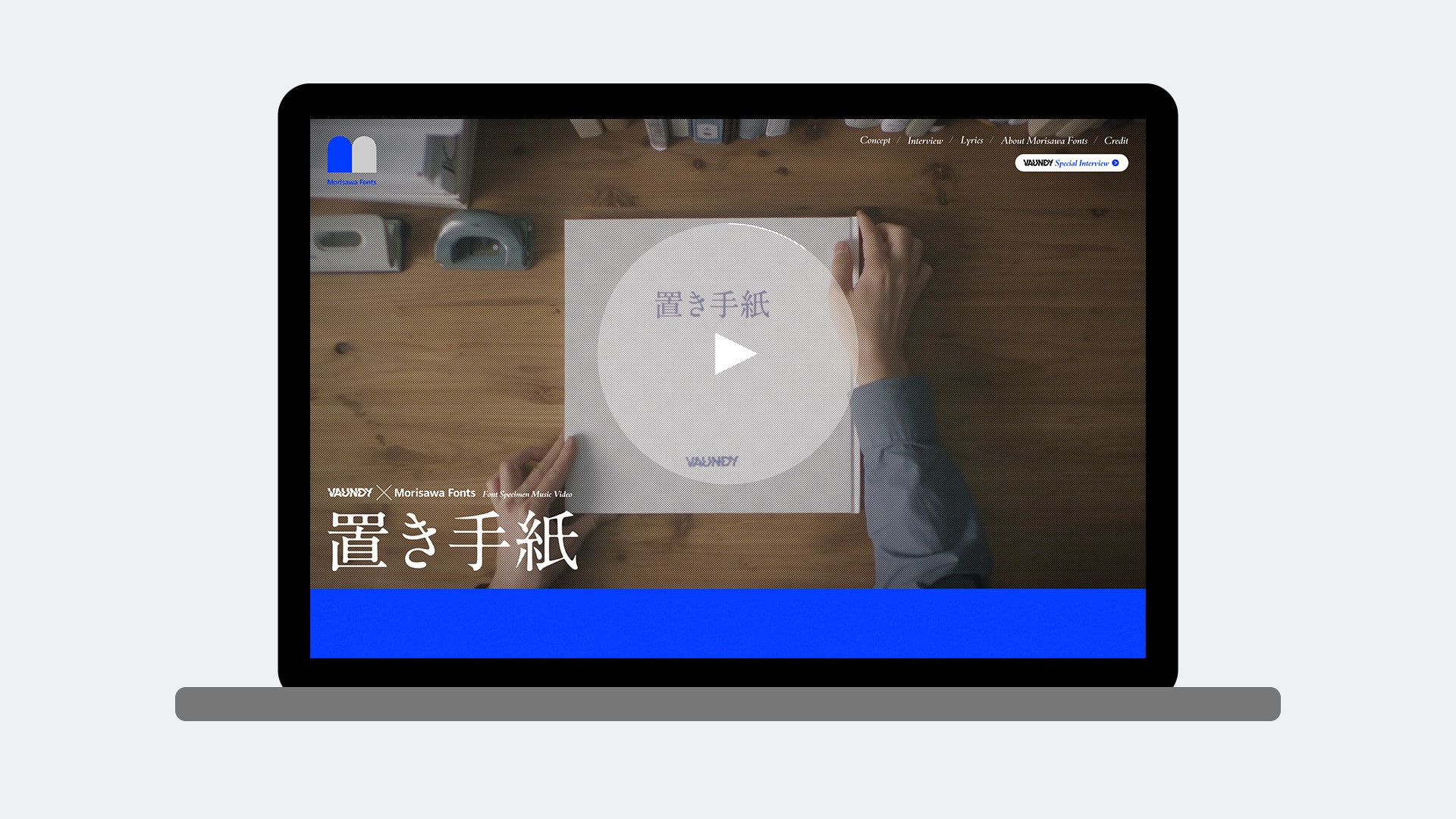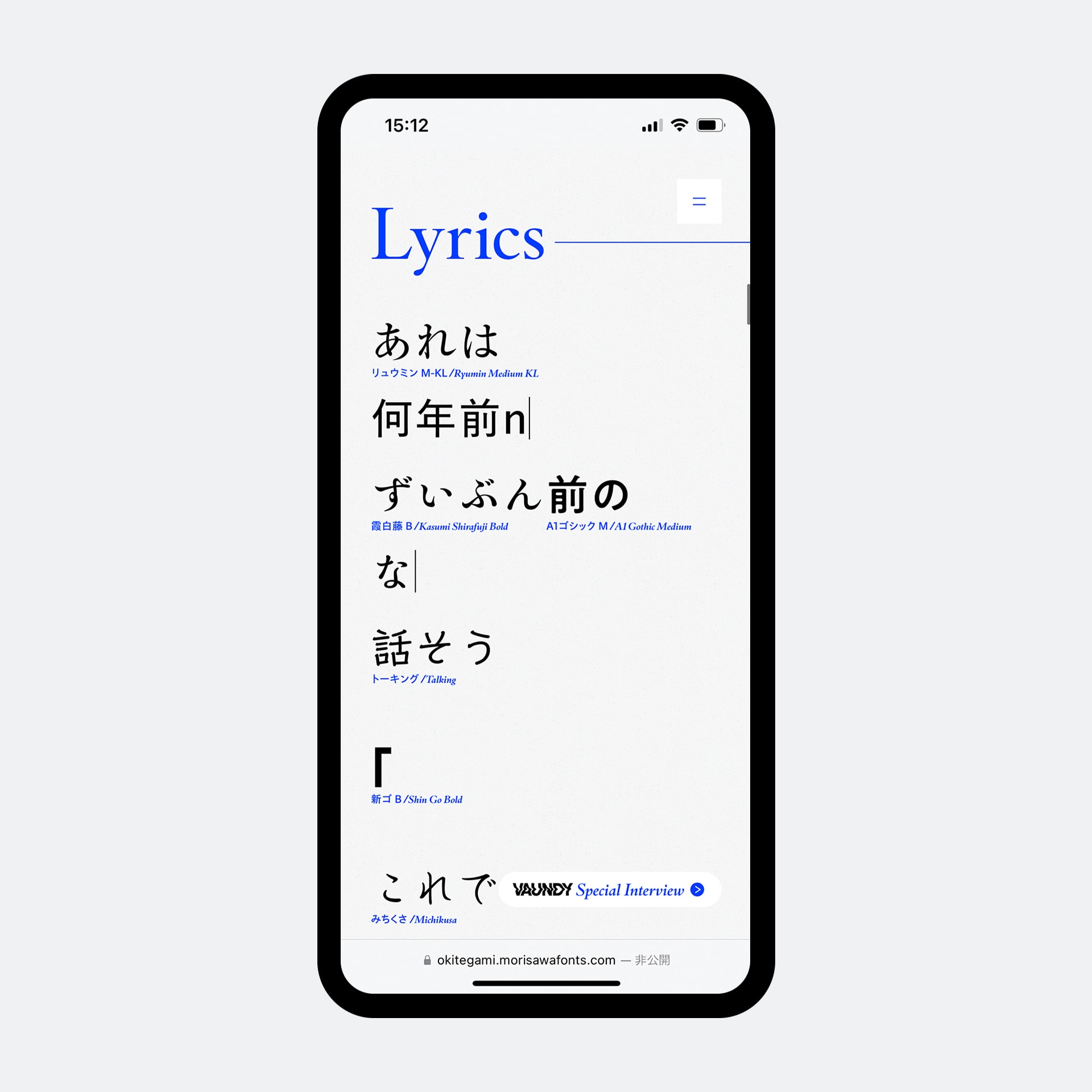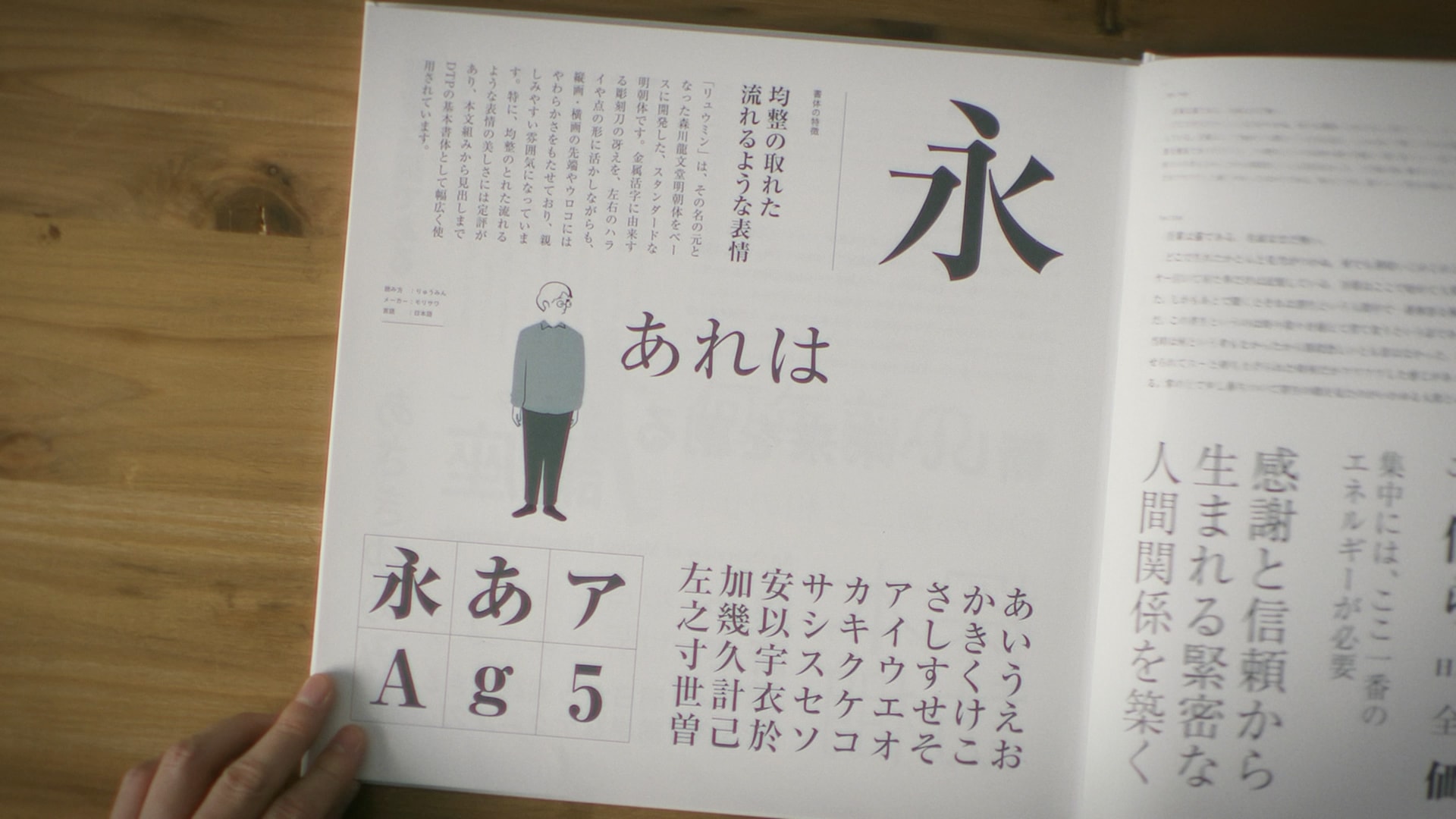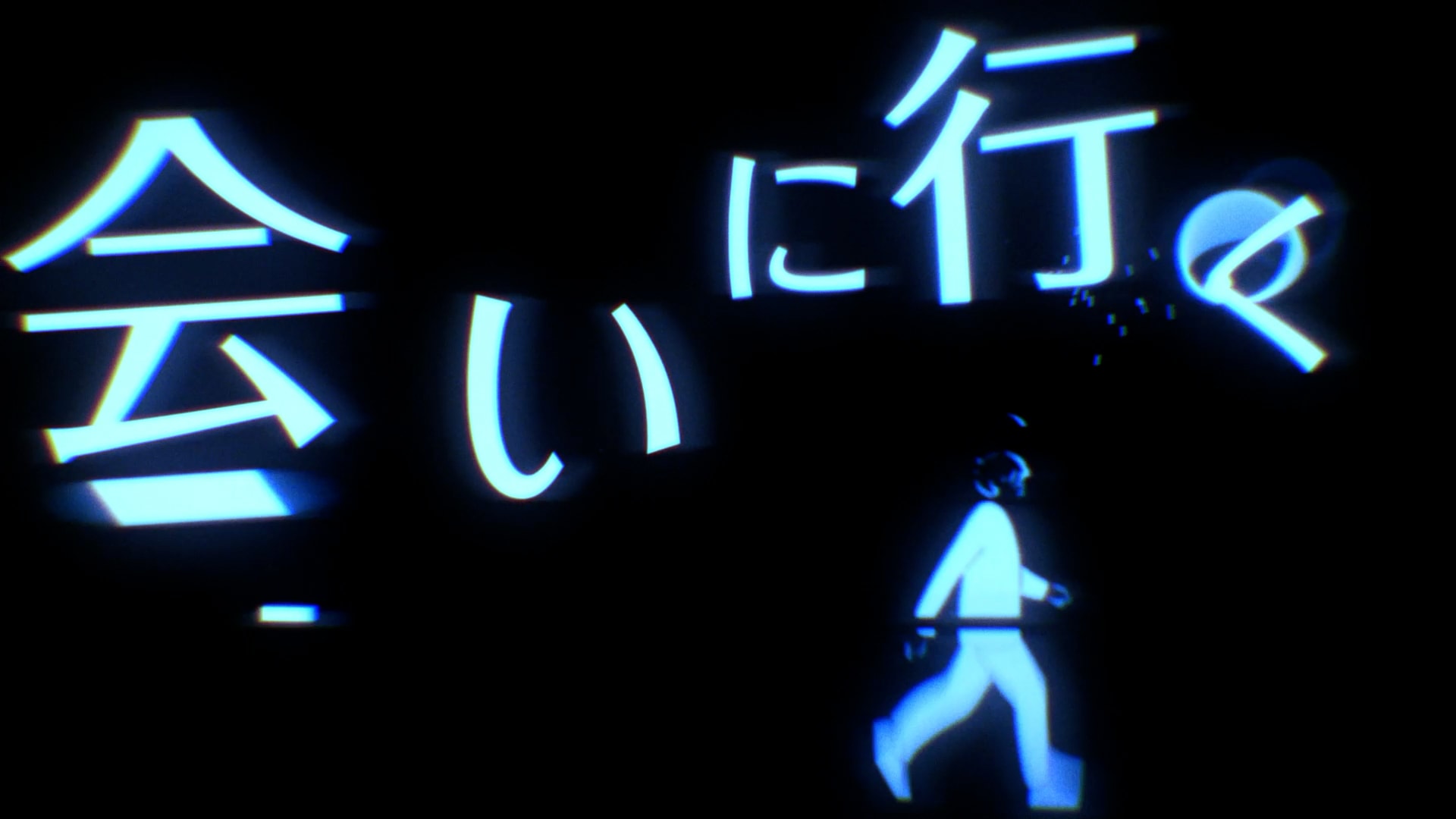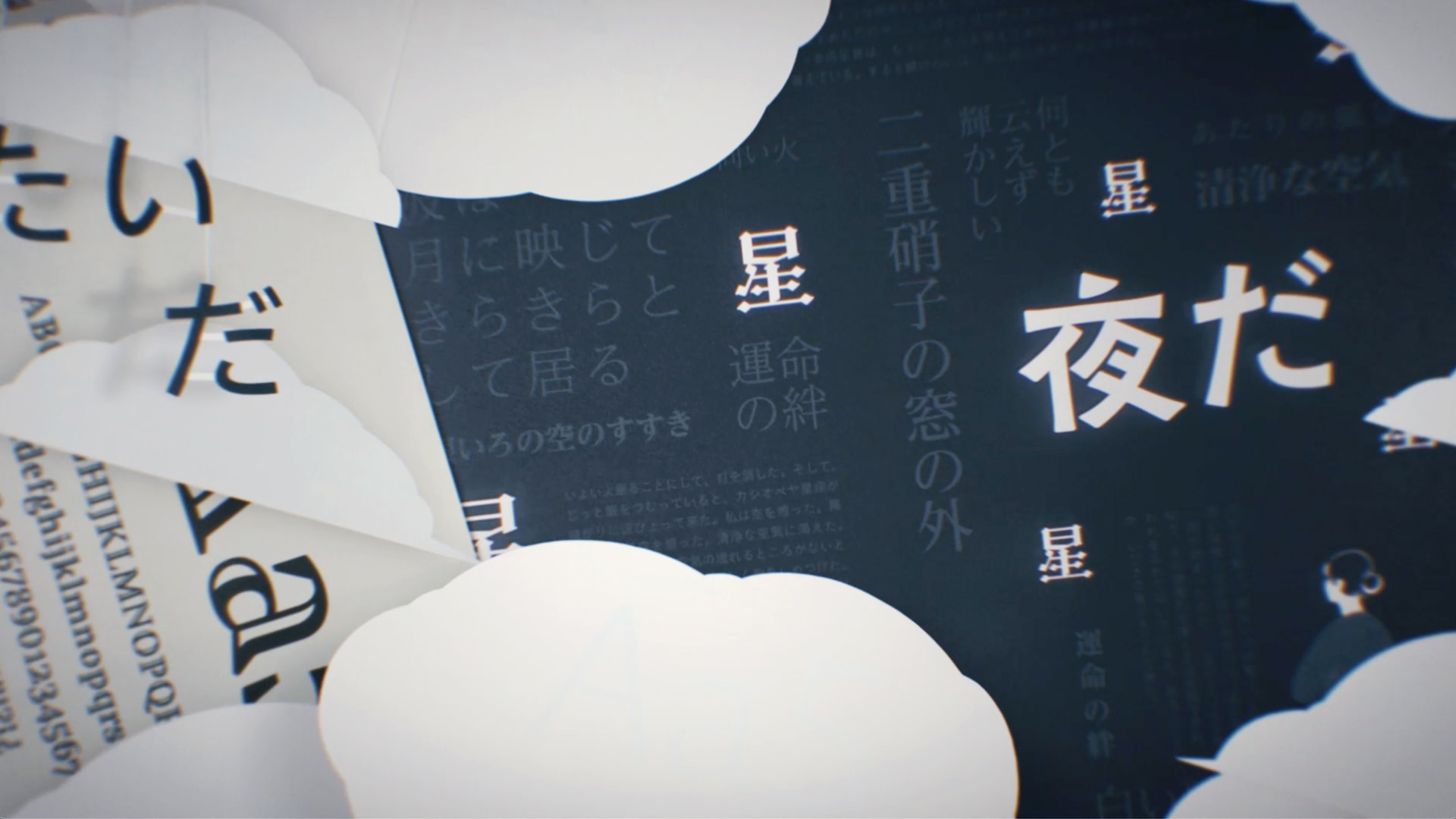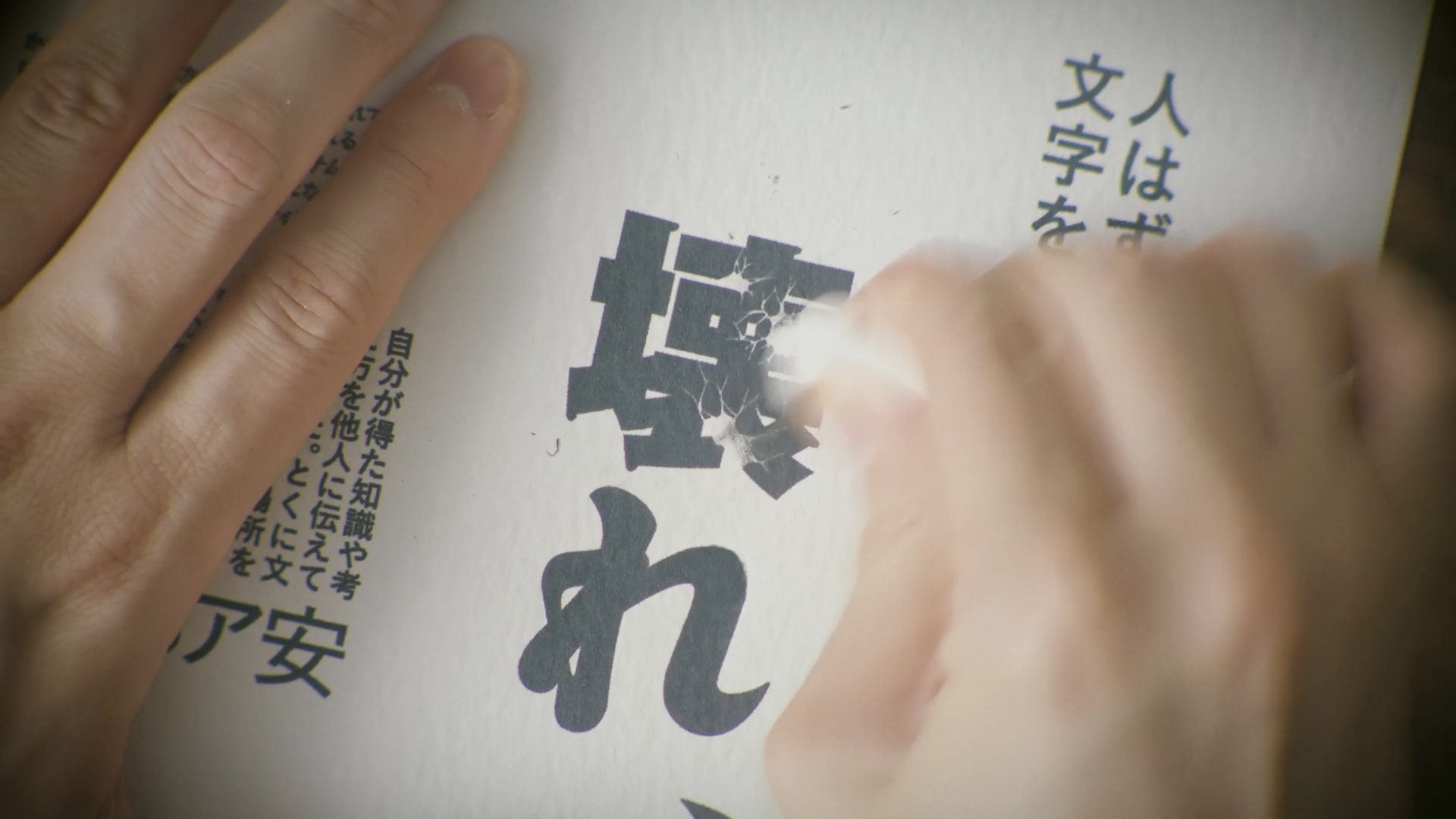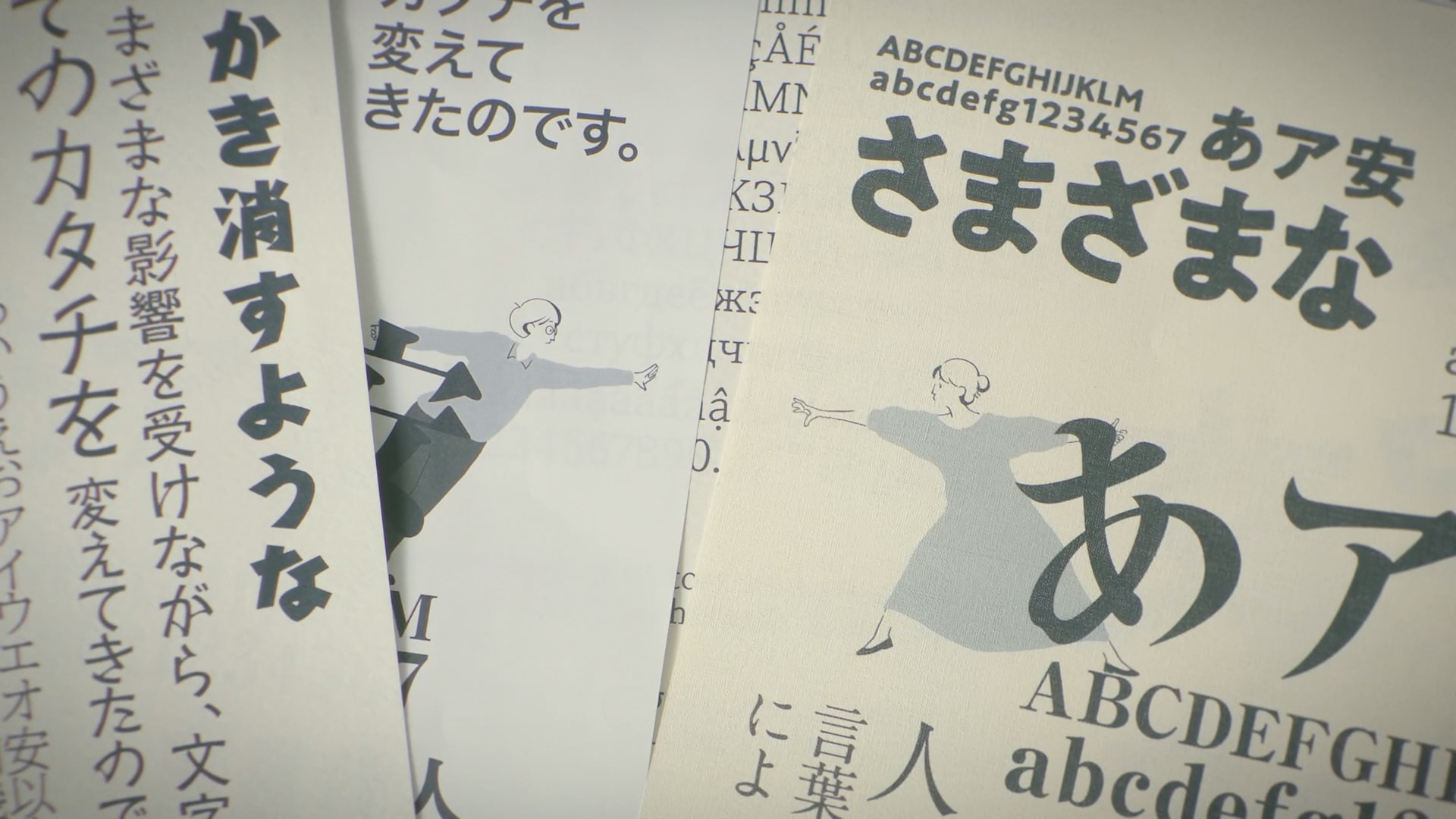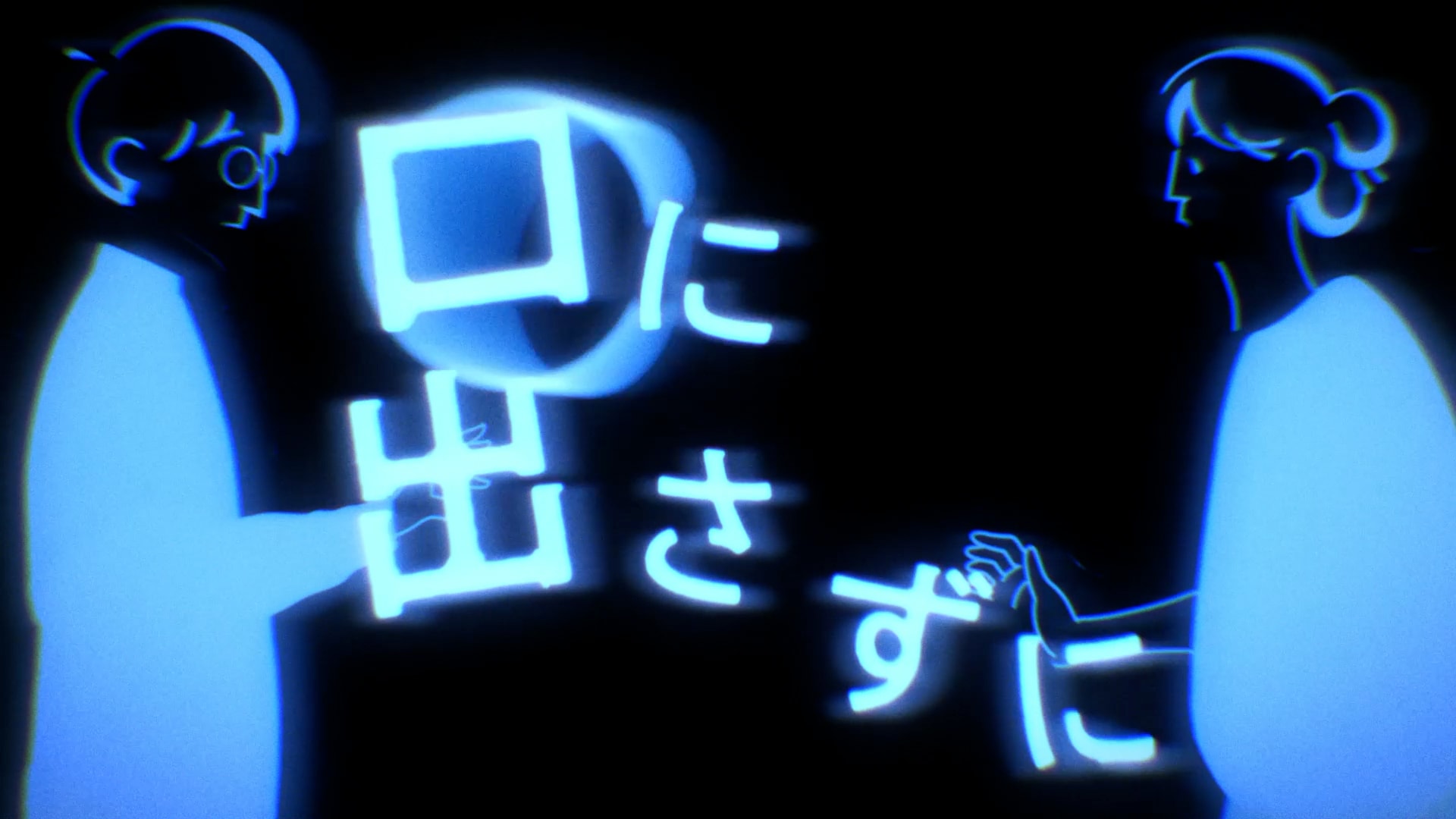
Vaundy × Morisawa Fonts “Okitegami”
A "Font Specimen Music Video" expressing the meaning and emotion behind the lyrics through an array of fonts
We planned and created the music video for “Okitegami” by the artist Vaundy in collaboration with Morisawa Fonts, a cloud-based font service developed by Morisawa, one of the leading font companies in Japan. We also created a website showcasing the music video and the collaboration between Vaundy and Morisawa Fonts.
This is a “Font Specimen Music Video” that uses 77 fonts, including Gothic and Mincho fonts provided by Morisawa Fonts, to breathe life into the lyrics of a song. This song “Okitegami” was specially written by Vaundy for this collaboration, and the music video spotlights the keywords within the song lyrics. Using fonts that match the meaning, weight, fragility, and strength of the lyrics, this music video is dynamic and expressive in showcasing the meaning and emotions behind the lyrics.